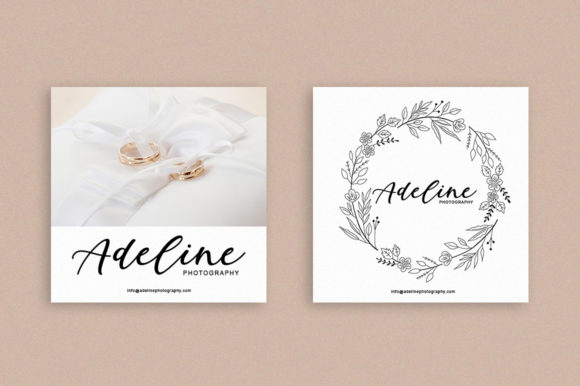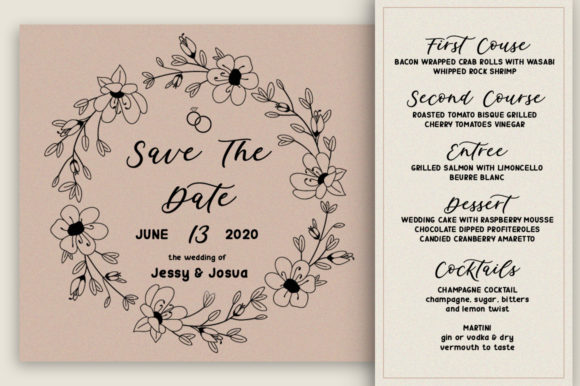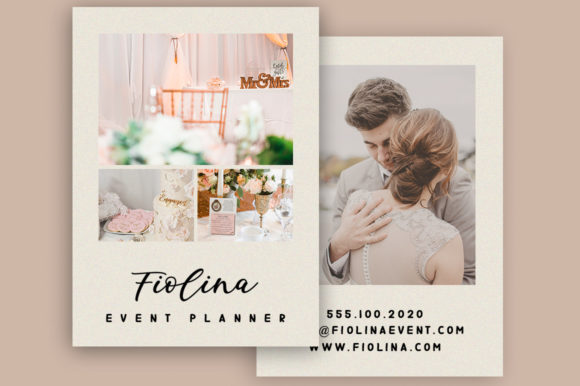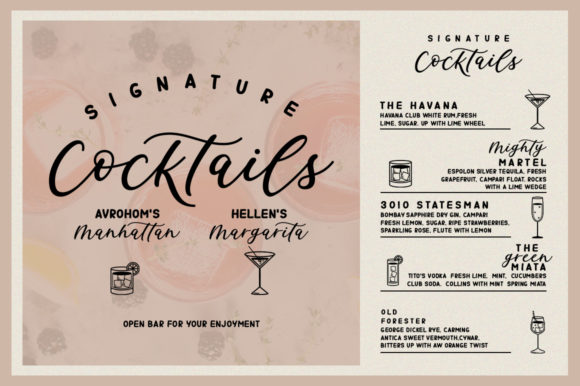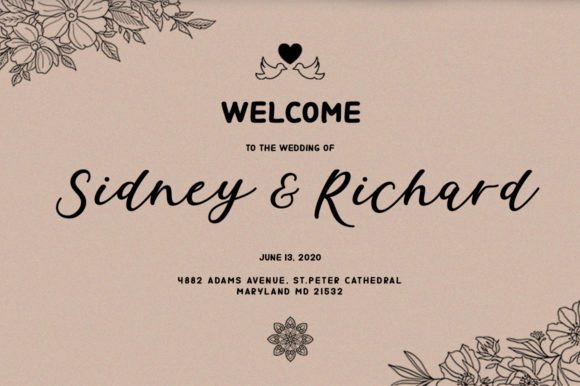
Signature Cocktails Duo Font – Free Download
Introduction to Signature Cocktails Duo Font
Signature Cocktails is a modern caligraphy font that will allow you tocreate beautiful hand-made typography in an instant.
Key Features of Signature Cocktails Duo Font
Why Choose Signature Cocktails Duo Font?
Signature Cocktails Duo Font offers exceptional quality and versatility, making it a valuable addition to your design toolkit. Whether you’re creating for personal projects or commercial use, Signature Cocktails Duo Font delivers professional results.